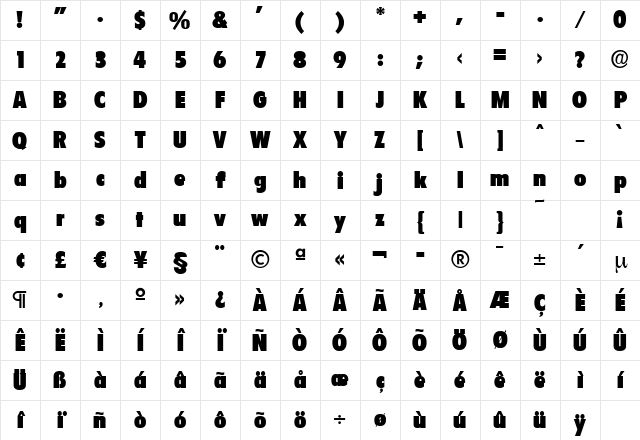
LuisBecker-Black Regular
Design Context for LuisBecker-Black
LuisBecker-Black is a composed and adaptable typeface that performs quietly and consistently across a wide range of design contexts.
Pro Tip: Use LuisBecker-Black in both headline and body roles to test its range before committing to a single application.